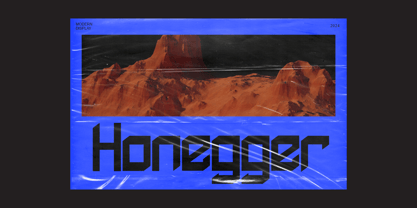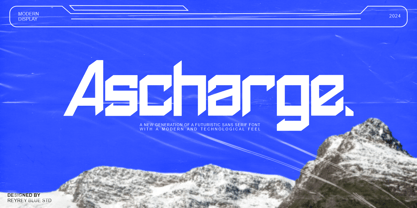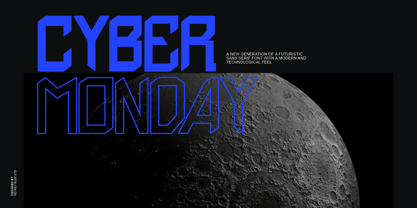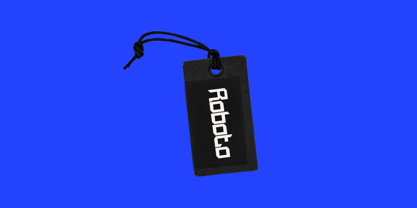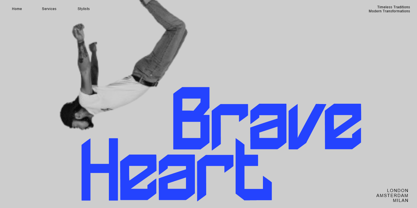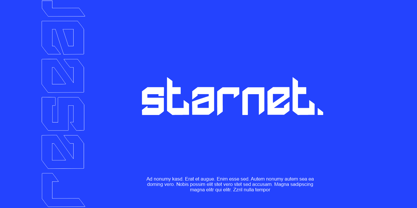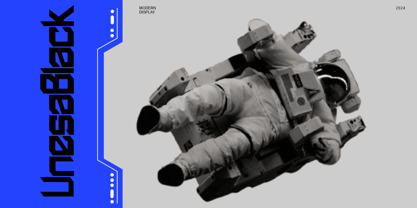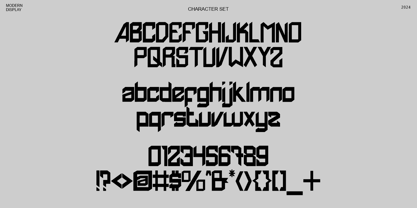
Ascharge
The Ascharge Font Family was designed by Nur Hasan and published by Reyrey Blue Std. Ascharge contains 1 styles. More about this family
Introducing Ascharge. It is a modern typeface with a futuristic hi-tech atmosphere. The typeface design will elevate your project, making it more powerful and inspiring.
Ascharge is perfect for technology, digital, and a space galaxy theme. It is also suitable for movies, documentaries, films, logos, posters, games, book covers, headlines, titles, and many more projects. Add this font to your creative ideas and notice how it will make them stand out!